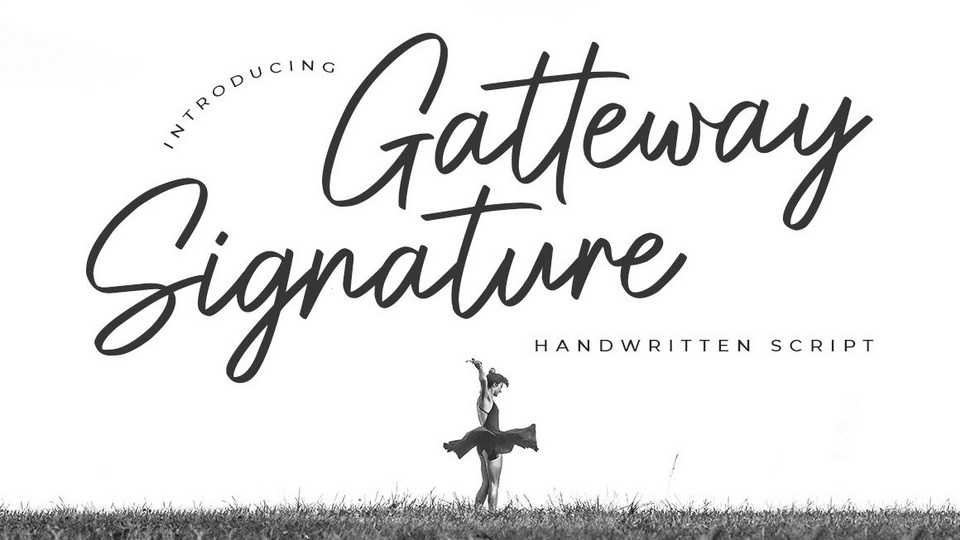
Download Gatteway Signature font, a stunning script typeface with a bold vibe. Gatteway Signature font is suitable for use on photography, business cards, weddings, t-shirt designs, logos, magazines, quotes, fashion, watermarks, invitations, signatures.